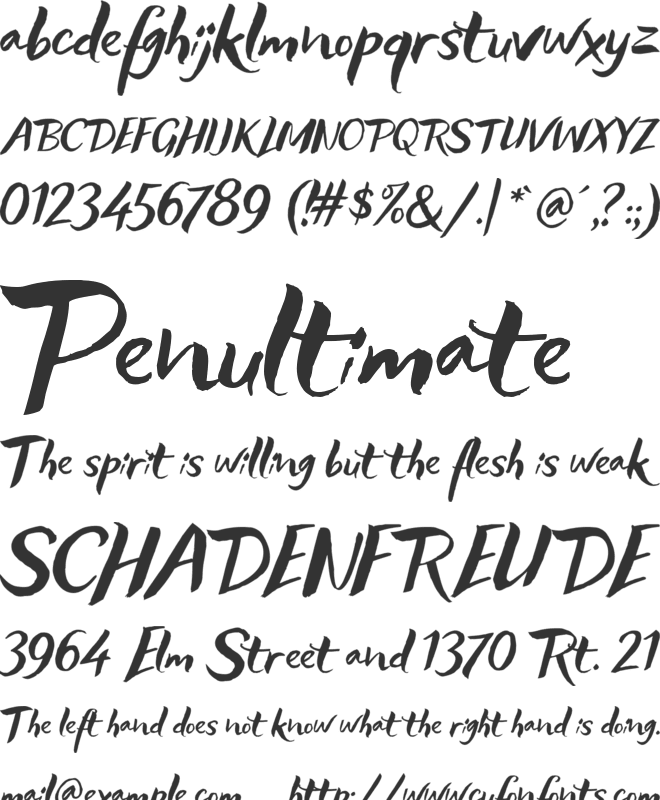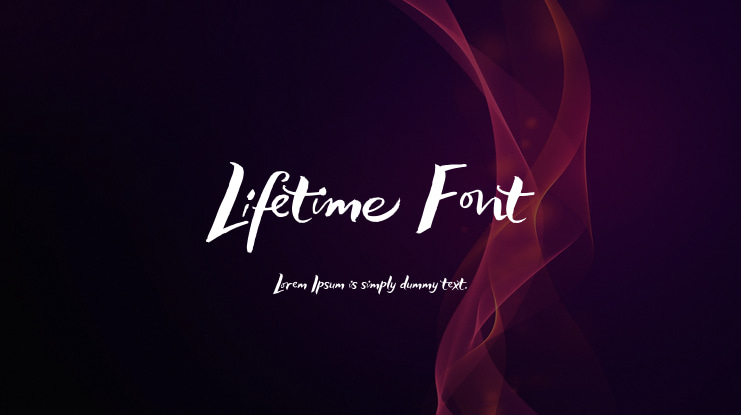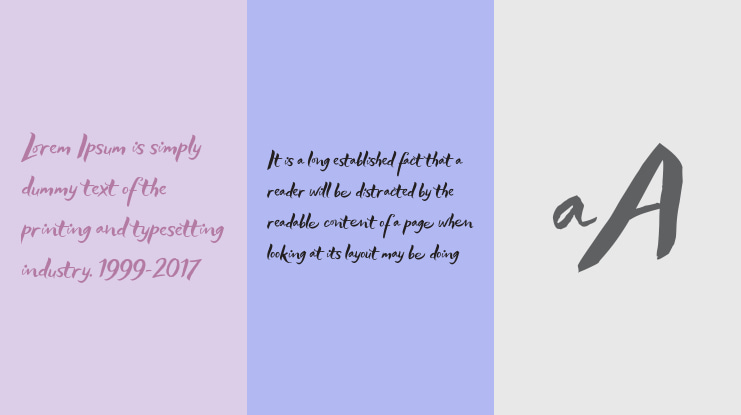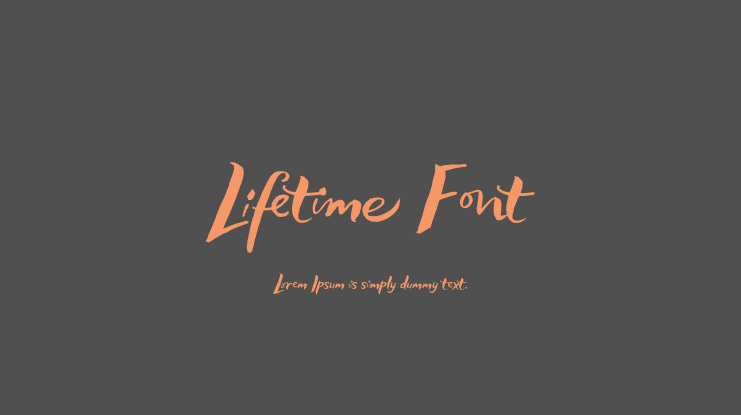
Lifetime Font
Lifetime Font, based on the Lifetime 2008 logotype. With ligatures like 'ov', 'ie', 'etw', etc., you can make text feel like a brush handwriting using the font.